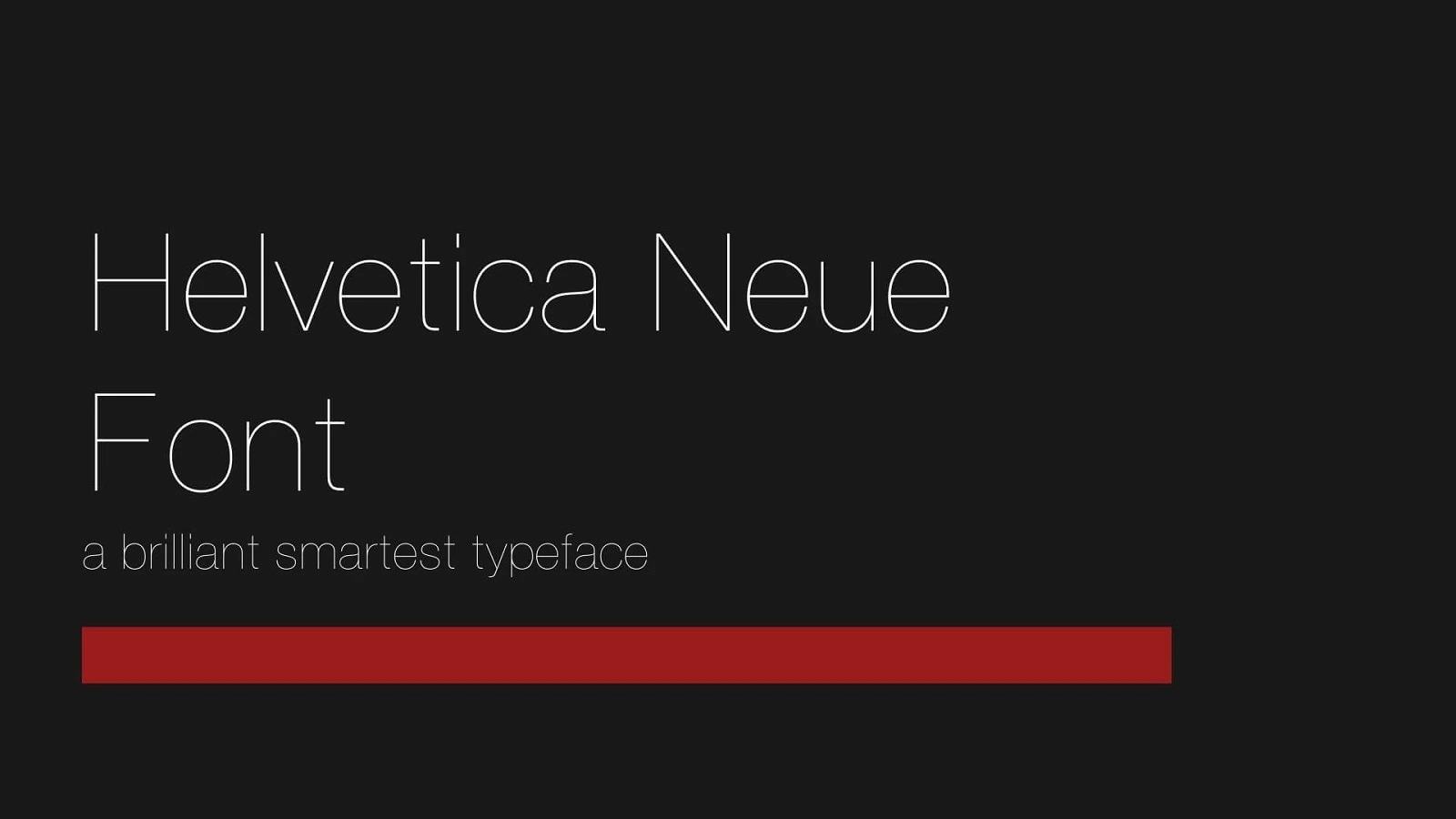
Helvetica Neue is a sans serif typeface. This font was developed by famous typeface designers Max Miedinger and Eduard Hoffmann.
Helvetica Neue Font was inspired by Akzidenz Grotesk Font. It is available in both adobe and google fonts. Like Univers font, it also uses the numerical design classification scheme.
Helvetica Neue Font
NameHelvetica Neue Font
DesignerMax Miedinger, Eduard Hoffmann
TypeSans-serif